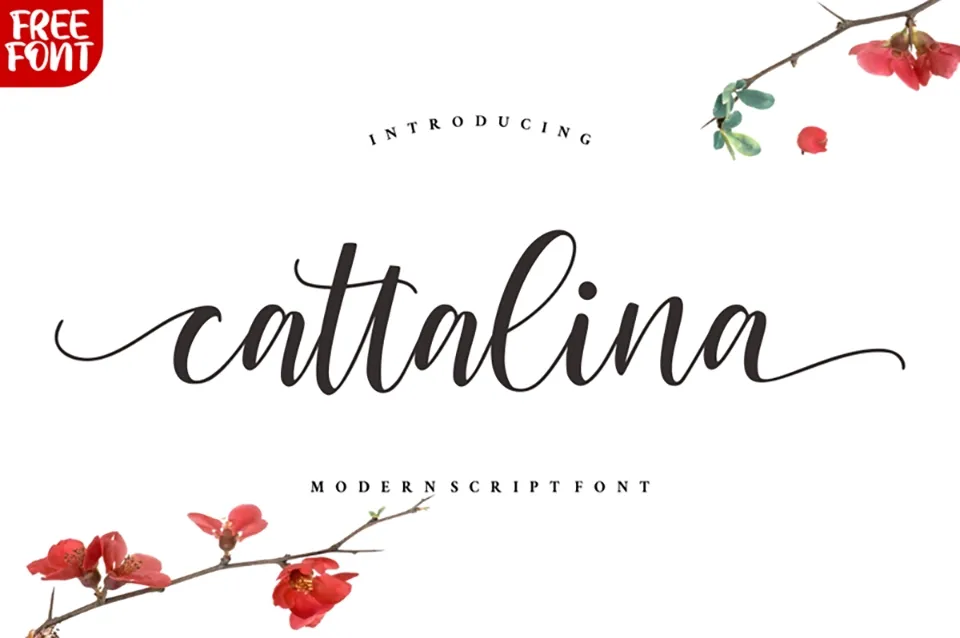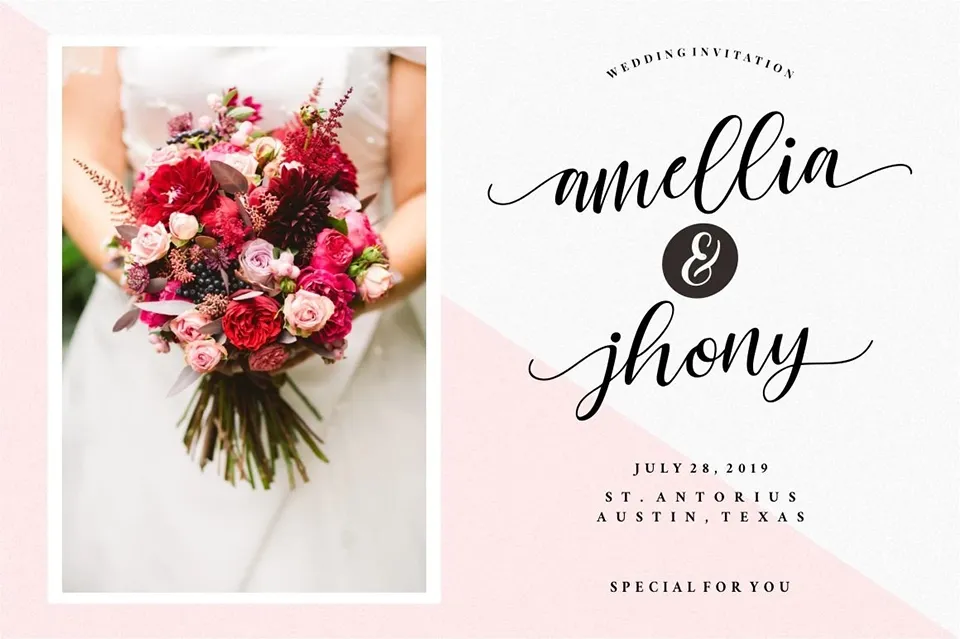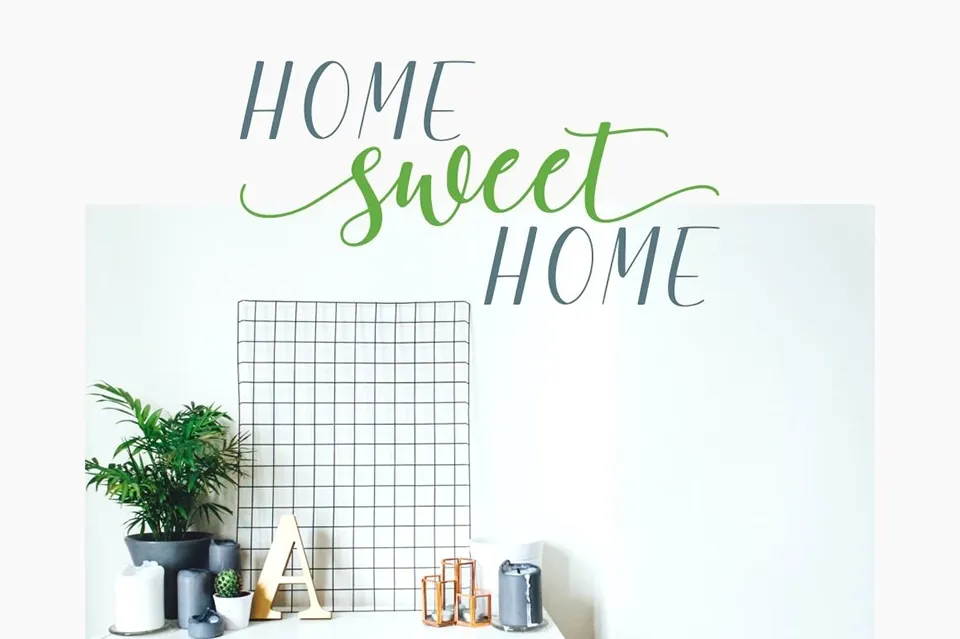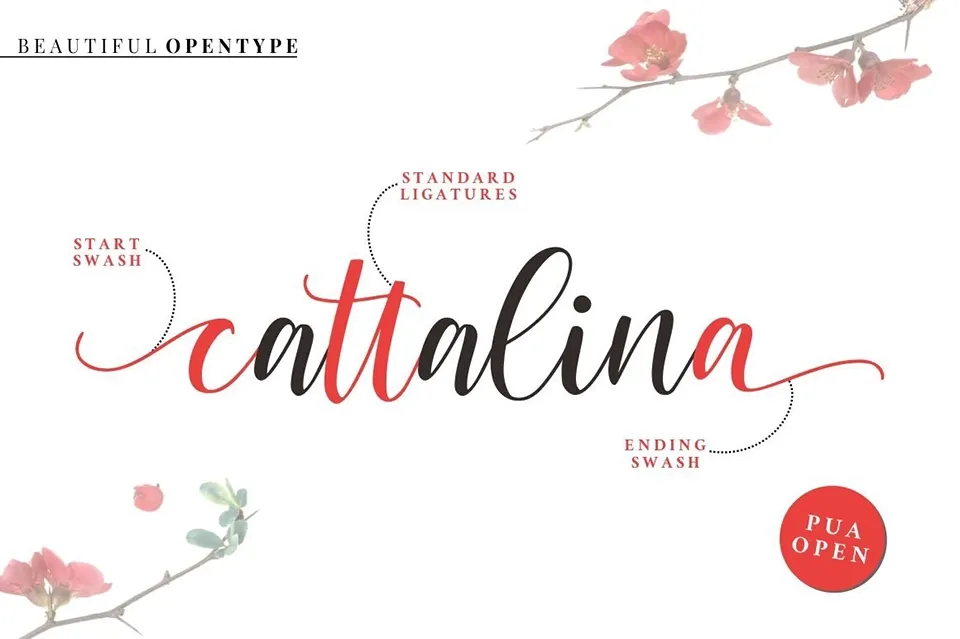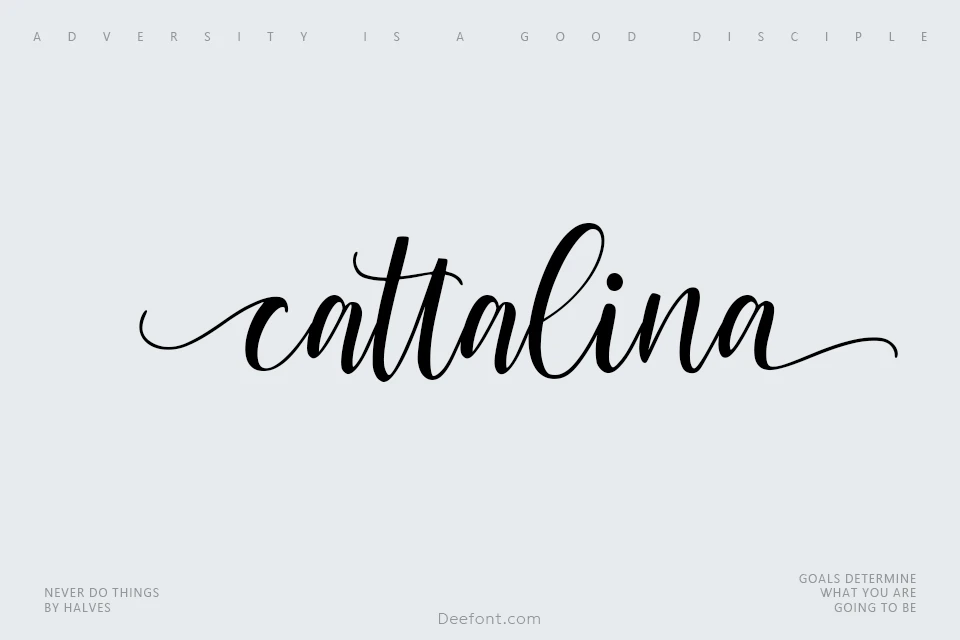
Cattalina Font
Cattalina Font is an elegant modern script font that brings a natural handwritten feel to your creative projects. With its flowing curves and graceful connections, this luxury typeface radiates sophistication and charm. Perfect for wedding invitations, logos, branding, stationery, packaging, and social media graphics, Cattalina adds a touch of refinement to any design. The font features complete character sets with uppercase and lowercase letters, numerals, punctuation, and multilingual support. Its versatile style works beautifully across both print and digital platforms, making it an essential addition to any designer’s toolkit. Elevate your creative work with Cattalina’s timeless elegance and artistic flair.